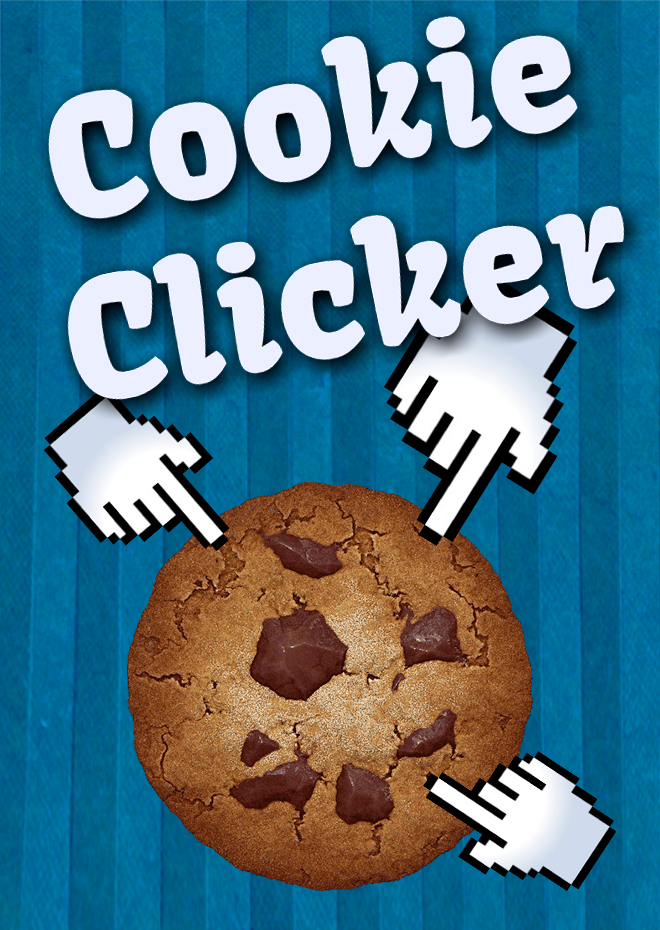
Cookie Clicker Font
Fonts in UseCookie Clicker is an incremental game that was created by French programmer Julien Thiennot in 2013. The game revolves around clicking a giant cookie to earn cookies, which can then be used to purchase upgrades and unlock new items.
The Steam storefront header of "Cookie Clicker" features a rounded font called Kavoon, created by Viktoriya Grabowska, which is available for free download from the Fonts Used Section. On the game's website, the primary font used is Merriweather, created by Sorkin Type.